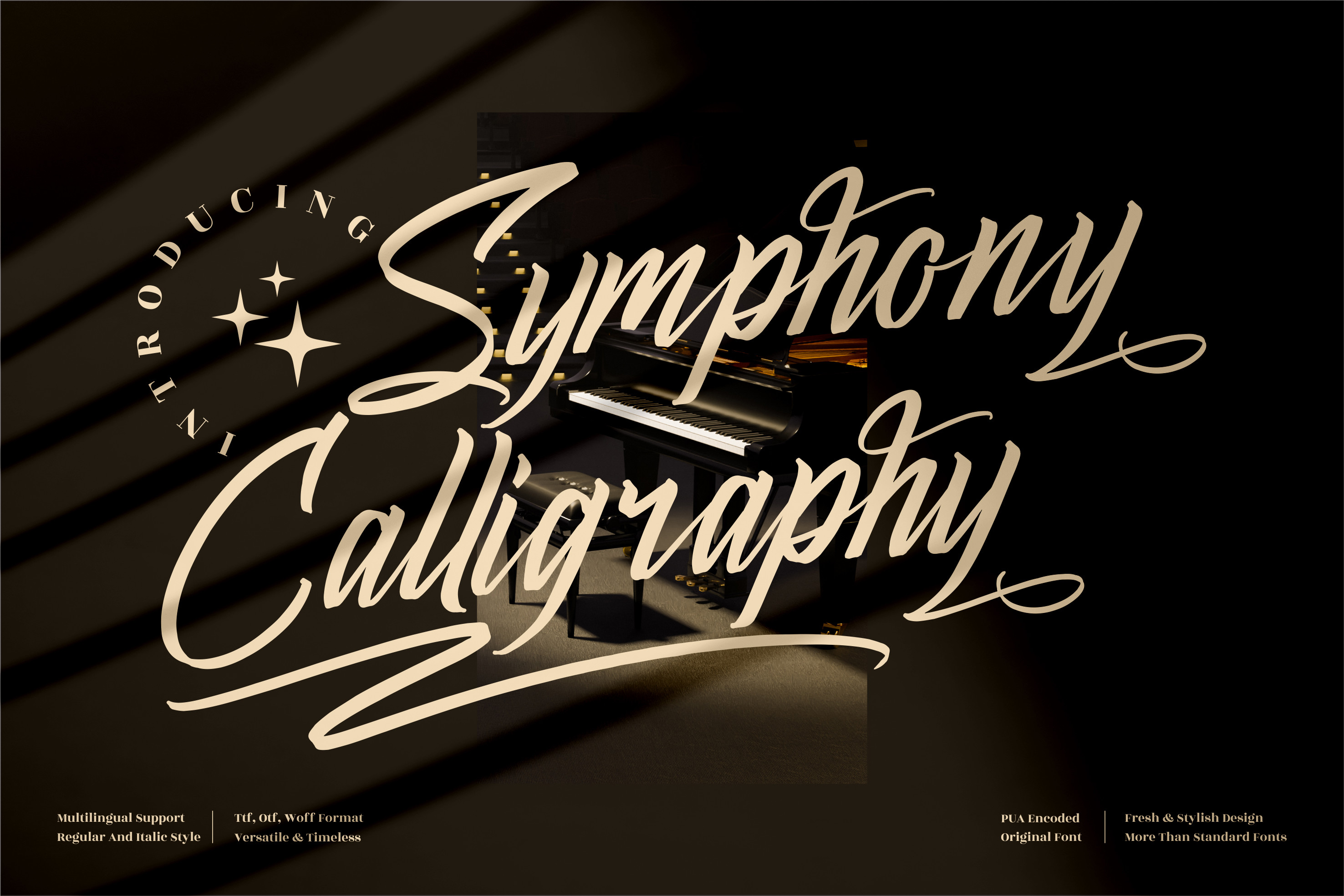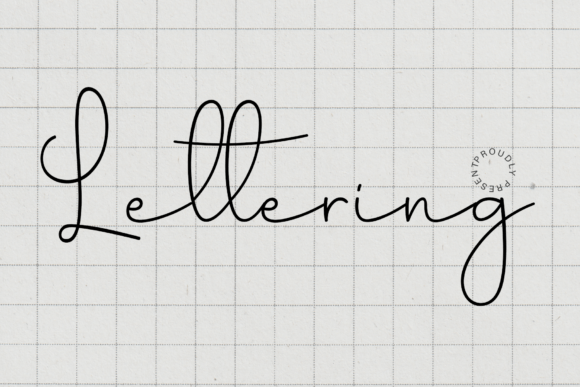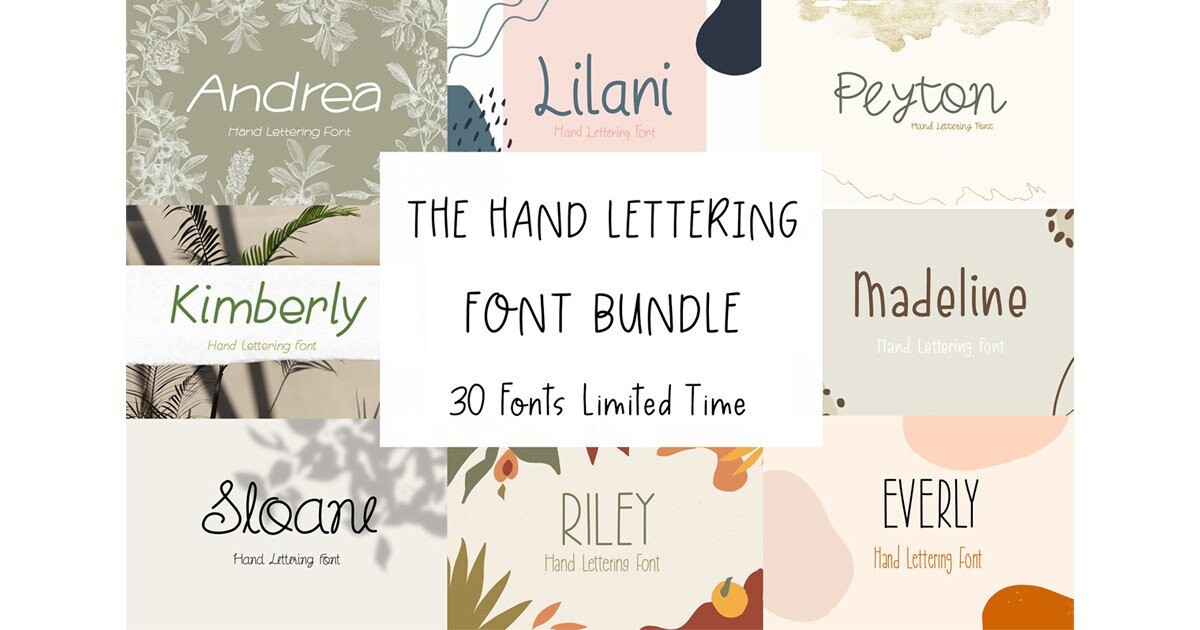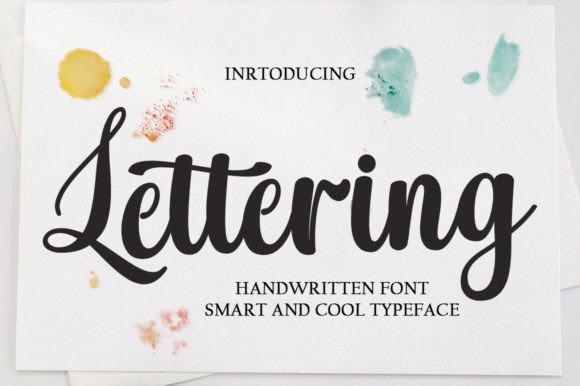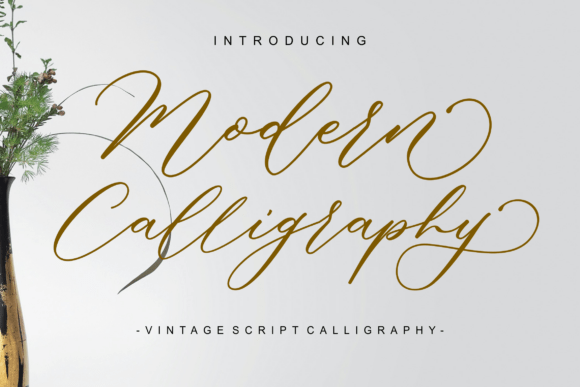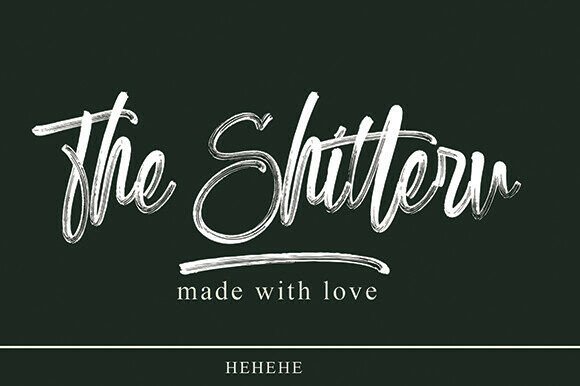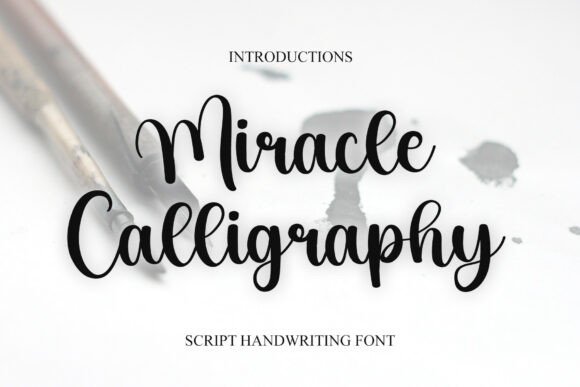
31 Must-Have Hand Lettering Fonts for Your Next Projects
31 Must-Have Hand Lettering Fonts for Designers (2026)
Discover 31 must-have hand lettering fonts perfect for your next design project, whether you’re creating for print, digital, or eCommerce. This curated list highlights versatile, high-quality fonts available on Creative Fabrica, ideal for designers, Etsy and Amazon sellers, and anyone looking to elevate their visual content.
Why Hand Lettering Fonts Matter for Designers
Hand lettering fonts have become a staple for modern designers seeking to inject personality, warmth, and creativity into their projects. Unlike traditional typefaces, hand lettering fonts mimic the nuances of pen and brush strokes, adding a custom, artisanal touch that resonates across branding, product packaging, social media graphics, and digital downloads. For designers, creators, and entrepreneurs—especially those in the booming Etsy, Amazon KDP, and small business arenas—choosing the right hand lettering font can be the secret to standing out in a saturated market. These fonts offer unmatched versatility for projects ranging from wedding invitations and logo design to product labels and content marketing visuals. Our selection presents globally relevant, platform-neutral resources tailored specifically for the needs of creative professionals in 2026. Whether you’re building a brand or crafting downloadable printables, the right hand lettering font will enhance your visual storytelling, boost engagement, and ultimately drive sales. For more insights and font inspiration, check out our 32 Best Slab Serif Fonts for Canva Projects (2026).
Comparison Table: Top 5 Hand Lettering Fonts
Font Name Style Best For License
Hand Lettering Cute Fonts Bundle Playful Handwritten Bundle Kids products, greeting cards, merchandise Commercial Use Included
Handmade Calligraphy Font Elegant Script/Calligraphy Wedding invitations, branding, stationery Commercial Use Included
Lettering Font by trhtype Smooth Casual Script Social posts, lifestyle brands, packaging Commercial Use Included
Lettering Font by pinkmeca Bold Handwritten Script Quotes, website headers, apparel Commercial Use Included
Hand Lettering Cute Fonts Bundle (Set 2) Charming, Whimsical Bundle Children’s books, invitations, crafts Commercial Use Included
Font Reviews: 12 Must-Have Hand Lettering Fonts
This bundle offers a delightful collection of playful and whimsical hand lettering fonts, featuring rounded letterforms and an approachable style. Perfect for children’s books, playful branding, greeting cards, and fun merchandise, these fonts bring a lighthearted touch to any project. Ideal for designers creating invitations, kids’ clothing prints, or personalized stationery. The versatility of the bundle makes it a go-to resource for any creative needing a touch of charm.
Handmade Calligraphy Font by Mastertype · Creative Fabrica
This elegant calligraphy font combines fluid, handcrafted curves with a sophisticated character. Its flowing script is ideal for wedding invitations, branding, event signage, and luxury stationery projects. It works beautifully in logo design, beauty packaging, and upscale blog graphics, giving your work a refined and romantic feel. The unique handmade style ensures your designs remain authentic and personal.
Lettering Font by trhtype · Creative Fabrica
This modern, smooth script font delivers a casual and trendy aesthetic perfect for lifestyle brands, Instagram templates, and on-trend product packaging. Its friendly, approachable strokes work well for social media graphics, YouTube thumbnails, and printables that require a sense of personalization and laid-back elegance. Whether used in quotes or headers, this font elevates creative projects with a genuine hand-lettered effect.
Lettering Font by pinkmeca · Creative Fabrica
With bold strokes and cheerful curves, this hand lettering font creates impact for both digital and print projects. It’s great for inspirational quotes, bold website headers, statement t-shirts, and personalized gifts. The font’s energetic character makes it well-suited for social media designs, event announcements, or any creative needing eye-catching, genuine handwriting.
This second bundle features a vibrant array of character-rich hand lettering fonts, suited for projects aimed at younger audiences or those needing a joyful vibe. Designers will find these fonts ideal for kid’s party invites, storybooks, printable planners, or playful logos. The bundle’s diversity allows for creative mixing and matching across a range of uses.
The Modern Calligraphy Font Bundle Bundle · Creative Fabrica
This collection showcases sophisticated, script calligraphy fonts with stunning transitions and decorative alternates. Perfect for wedding collateral, elegant brand identities, luxury packaging, and event marketing materials, these fonts exude modern romance. Use them in invitations, save-the-dates, or branded content where a sense of style and artistry is paramount.